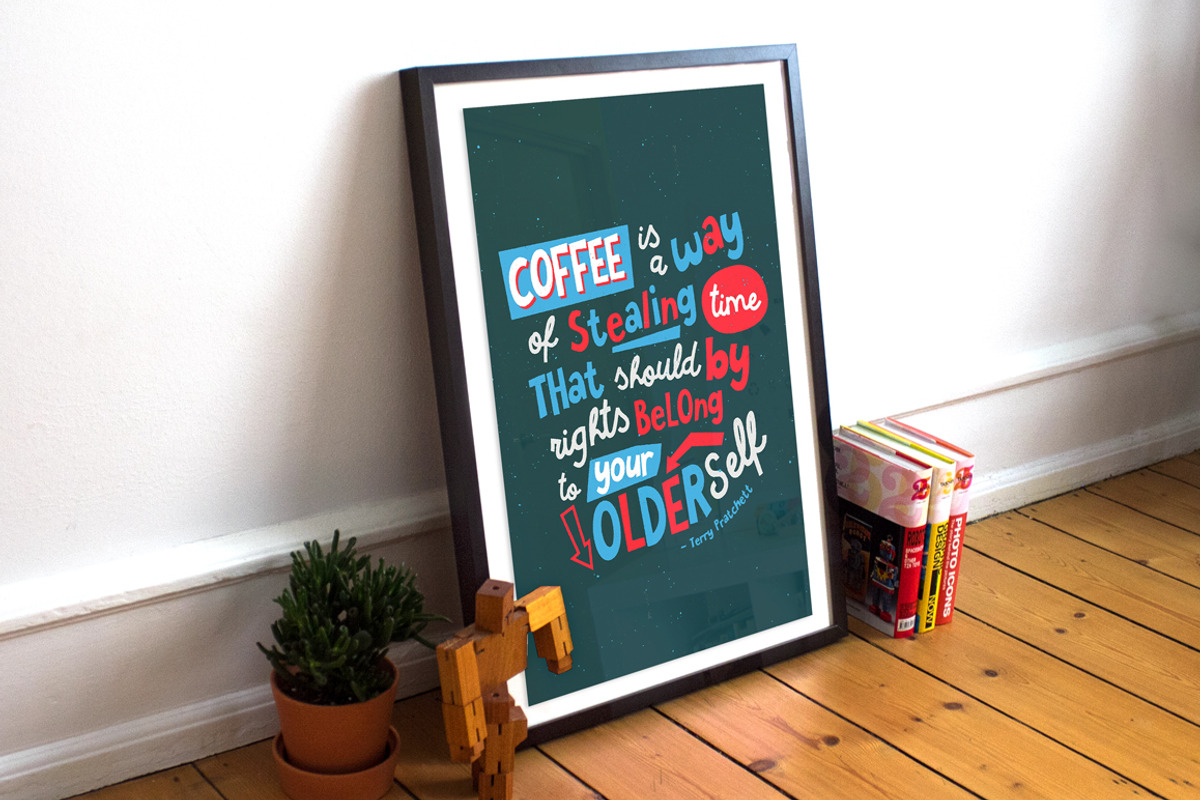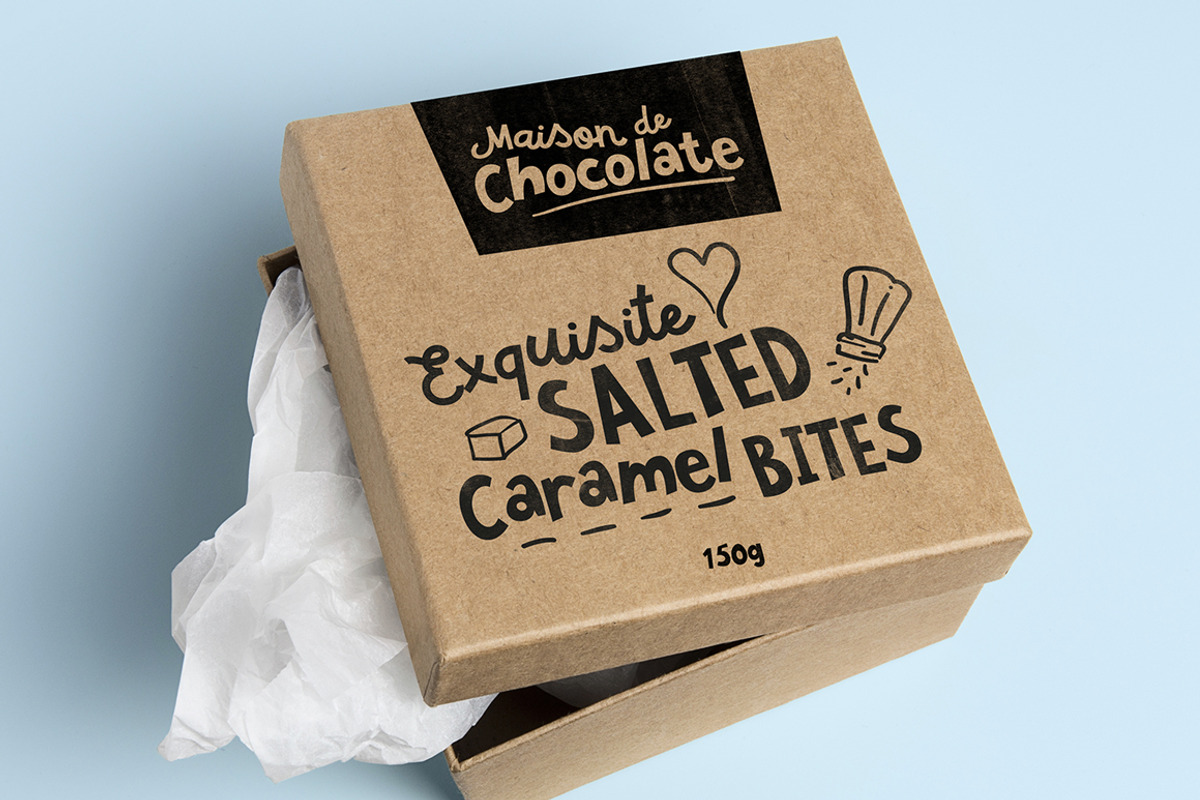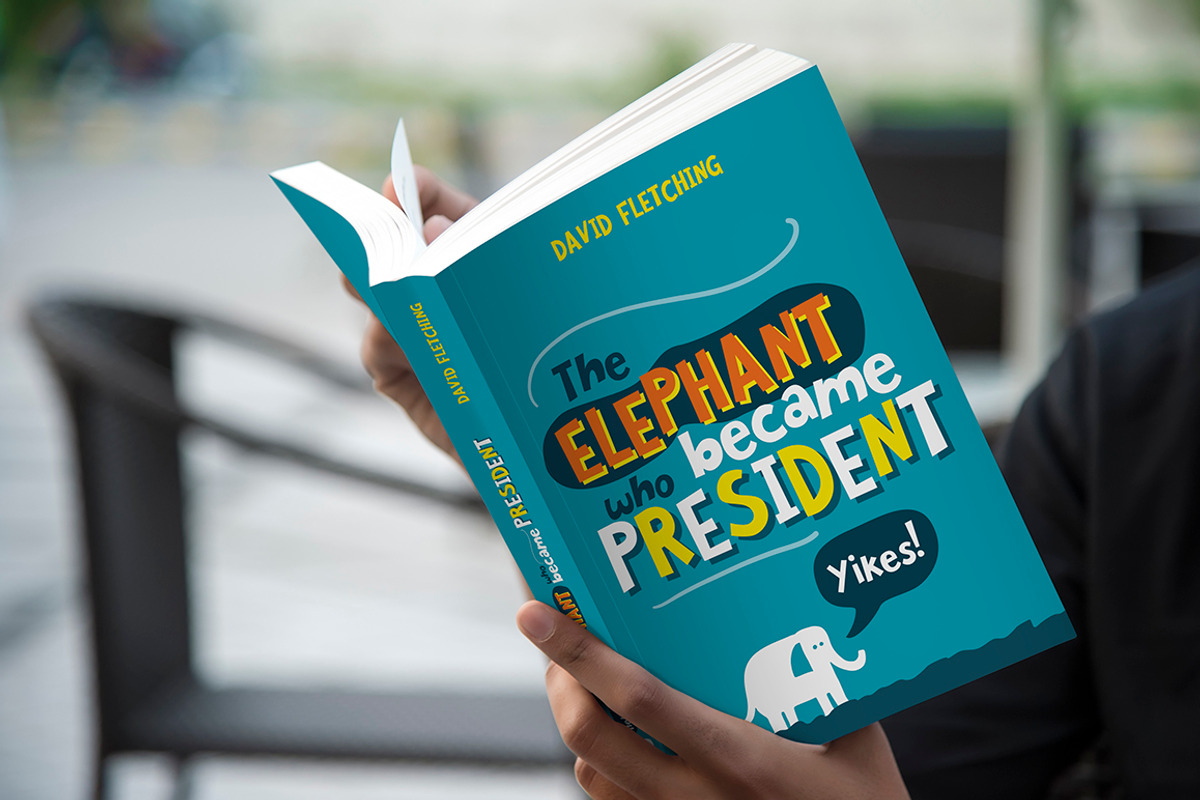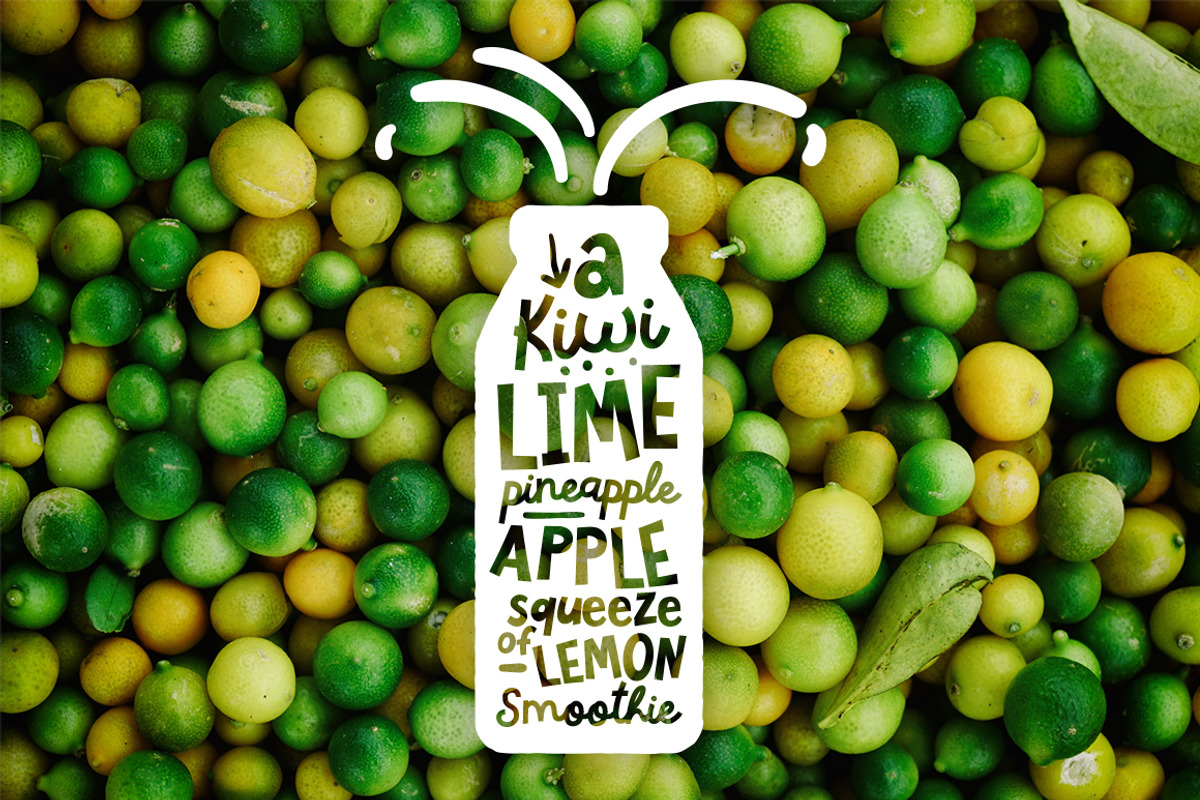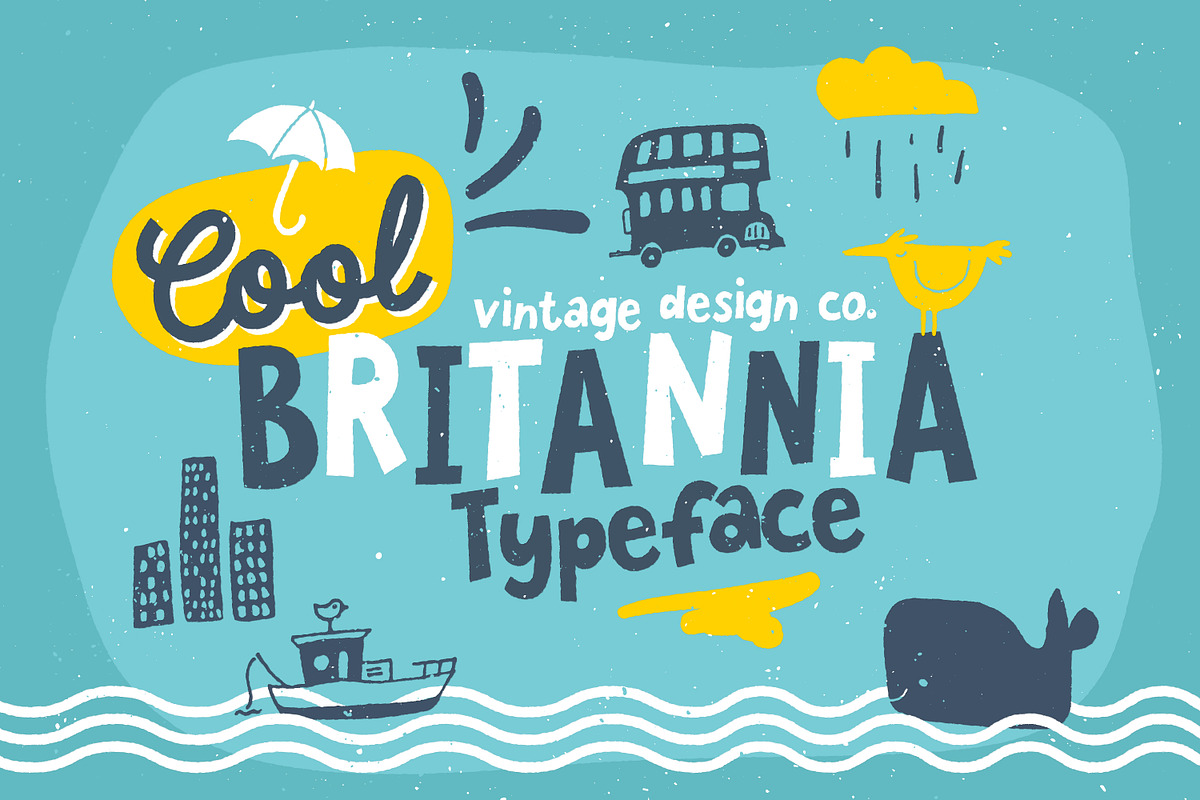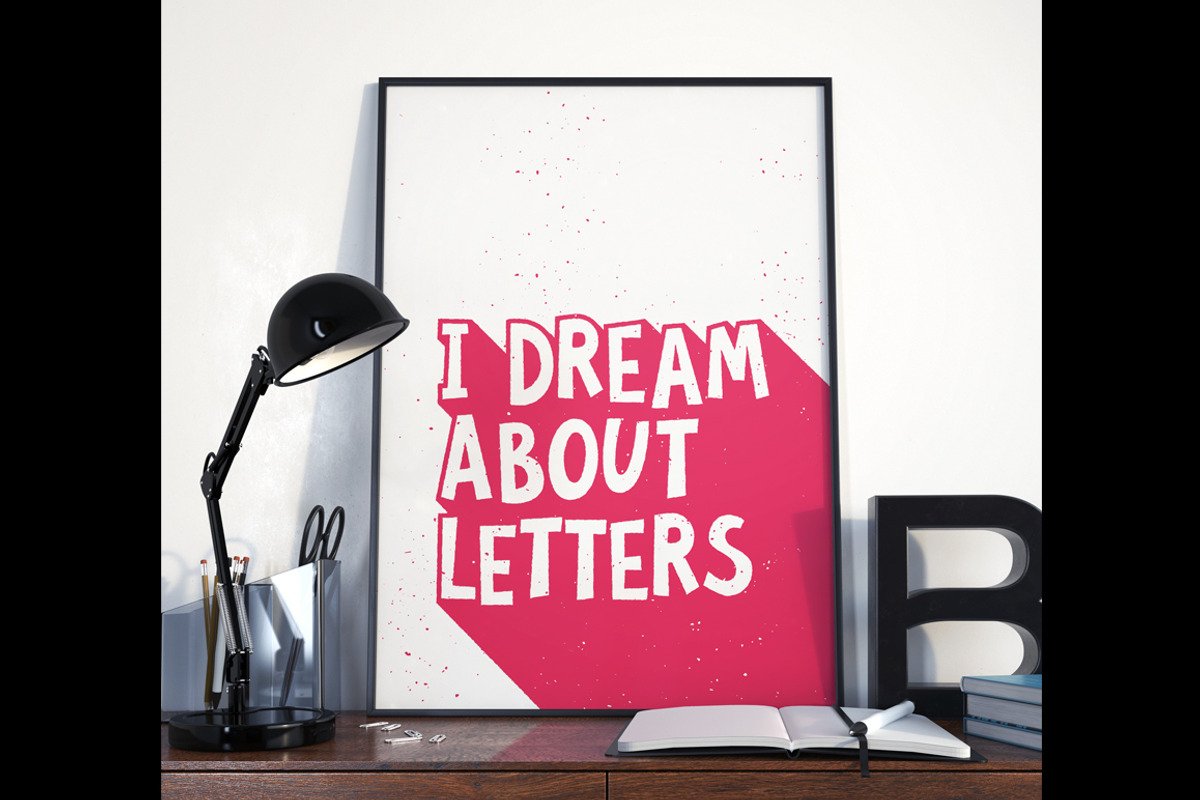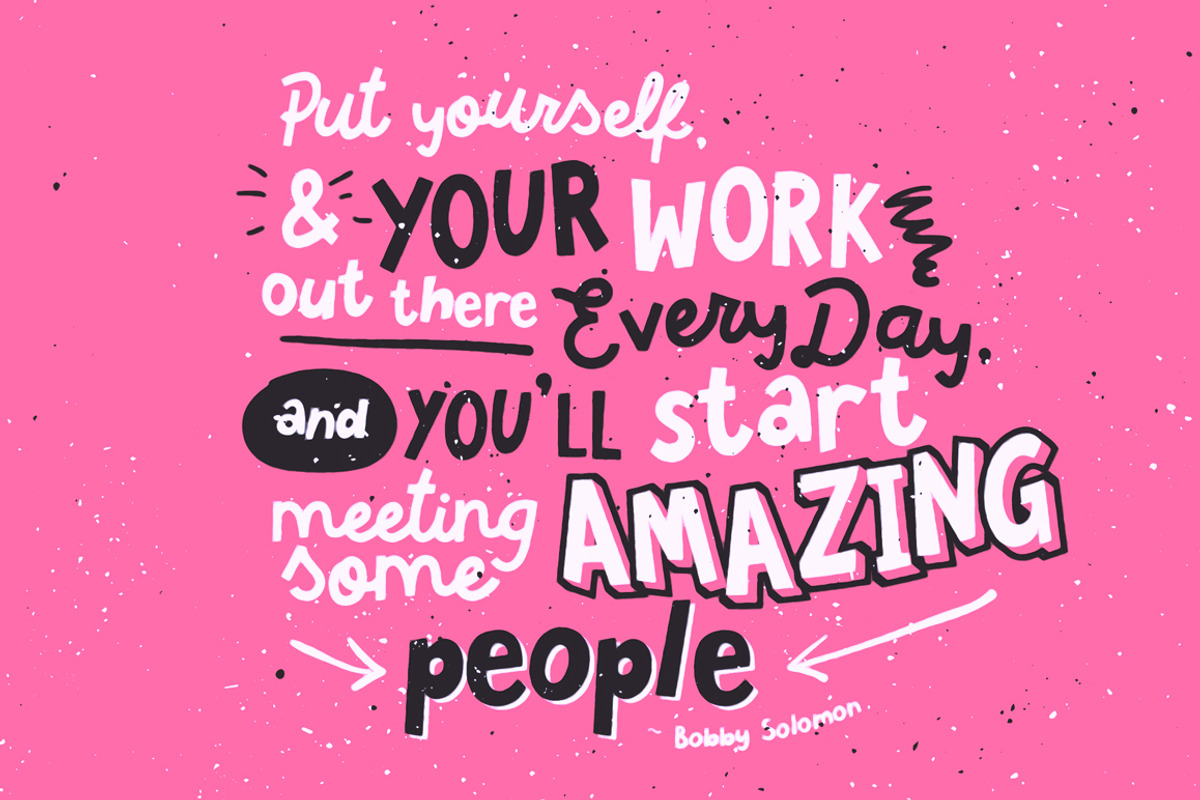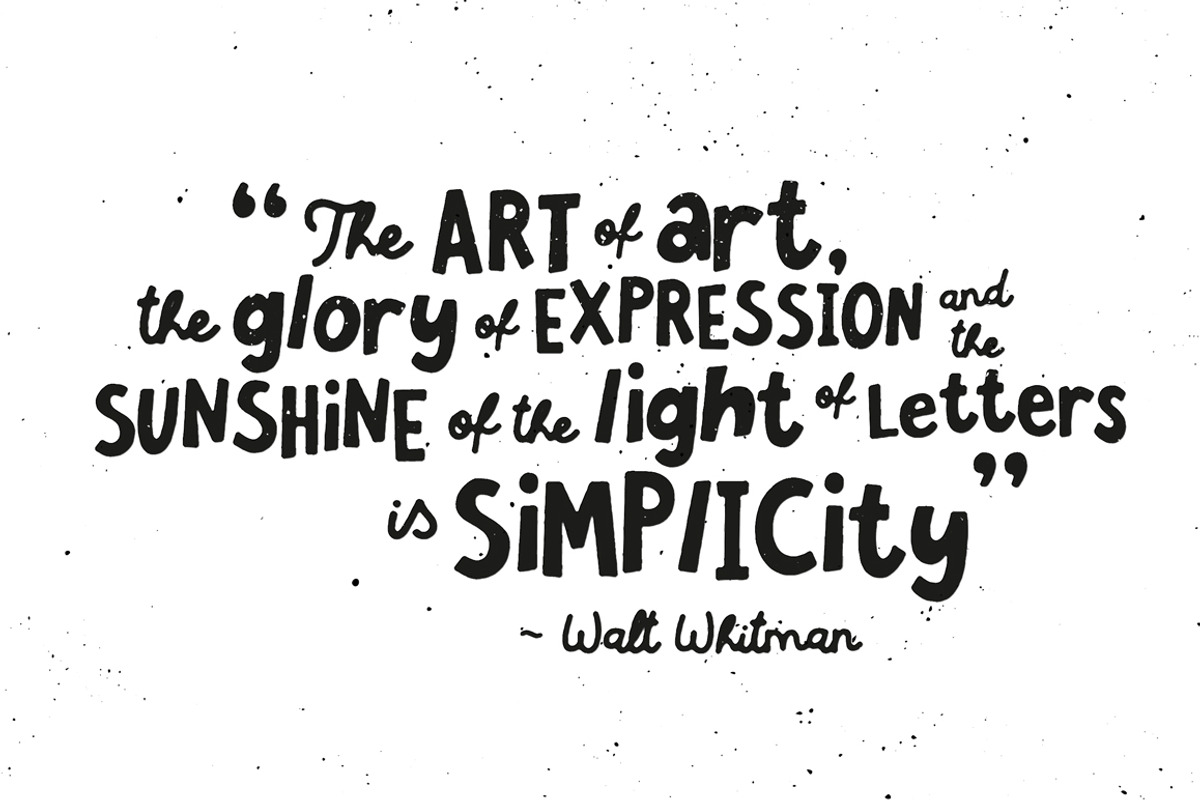
Cool Britannia - Typeface
Cool Britannia - Typeface by Ian Barnard is a font selected for branding, posters, packaging, typography.
- A solid script face and a sans which look great in either all caps or lowercase.
Why Cool Britannia - Typeface is worth a look
Cool Britannia - Typeface by Ian Barnard fits naturally into Branding, posters, packaging, typography.